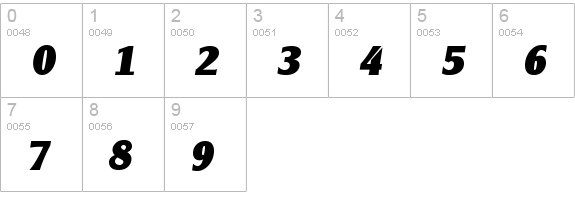
Cleargothic-ExtraBoldIta Font Details
Cleargothic-ExtraBoldIta is a striking and dynamic font that exudes strength and elegance. Its bold and italicized design commands attention and makes a powerful statement in any design project. The sleek and modern aesthetic of Cleargothic-ExtraBoldIta is perfect for headlines, titles, and branding materials that require a strong visual impact. What makes Cleargothic-ExtraBoldIta even more appealing is that it is available for free download at FontsMarket.com. This means that designers and creatives can easily access this high-quality font without any cost, making it a valuable resource for a wide range of projects. Whether you're working on a poster, logo, website, or any other design piece, Cleargothic-ExtraBoldIta is sure to elevate your work with its bold and stylish appearance. Download this font today and add a touch of sophistication to your designs.